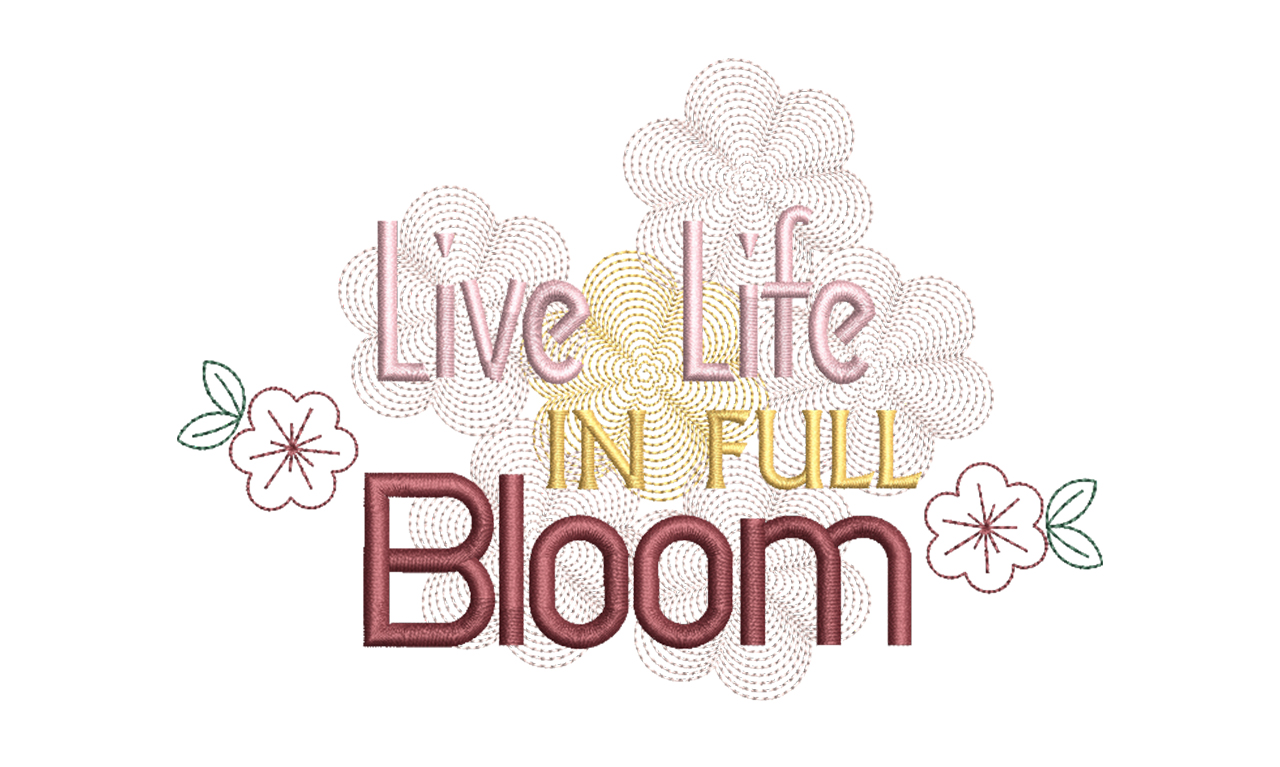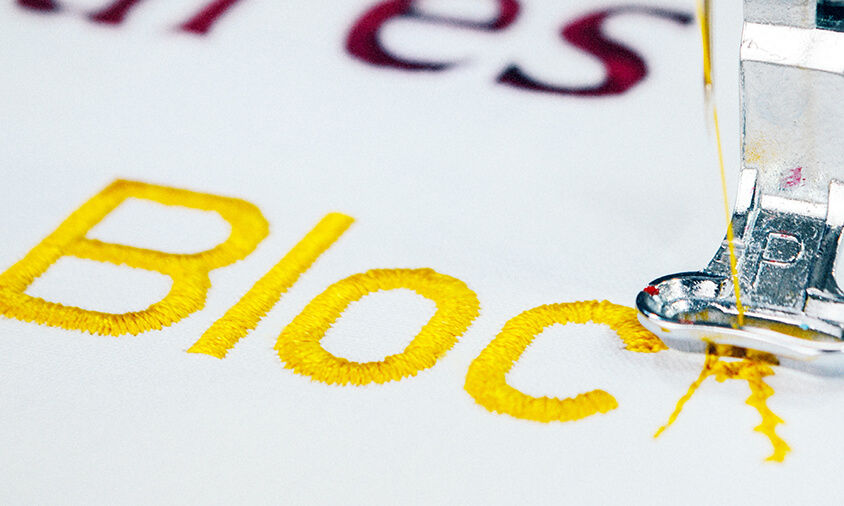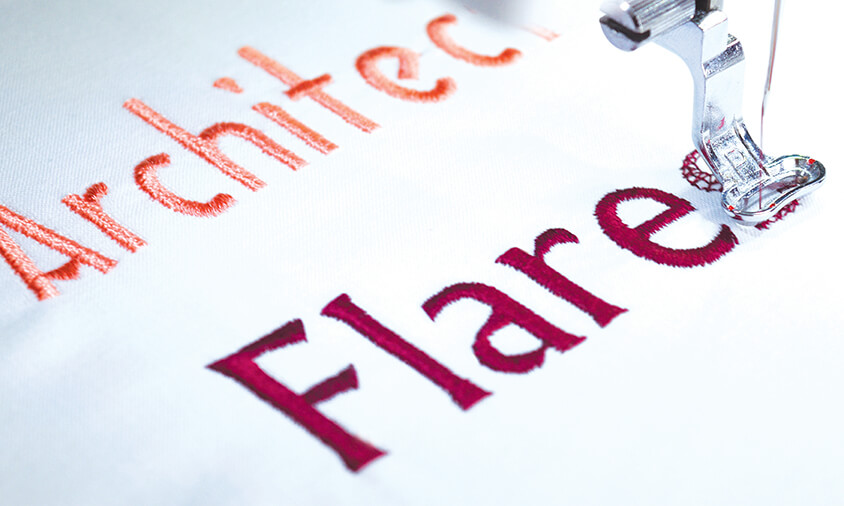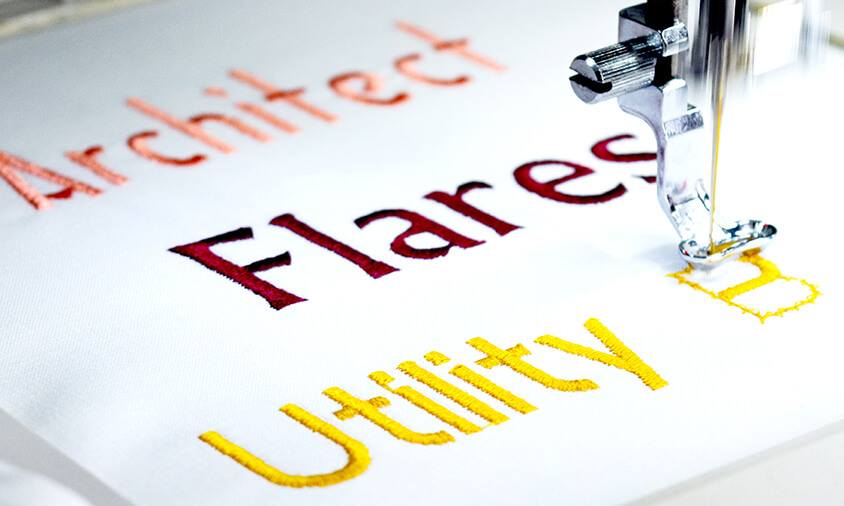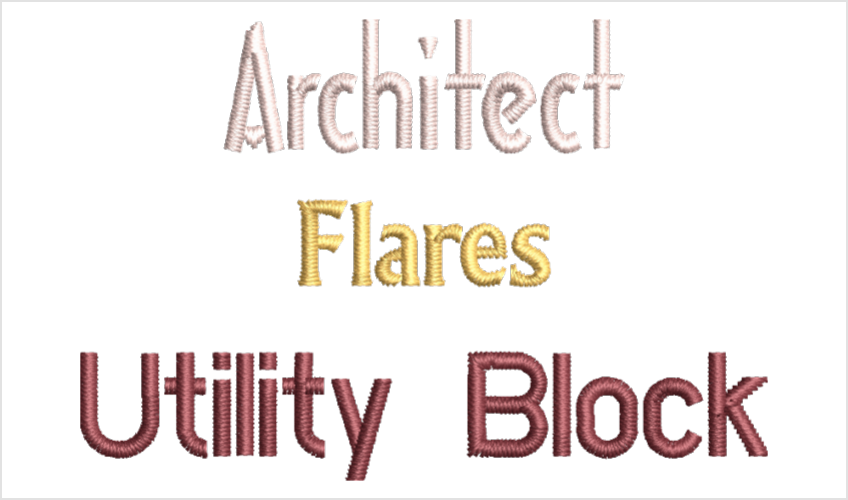
This is one of the easiest font styles to read in embroidery. Perfectly selected to add to your lettering and monogramming font collection. Each one has been professionally digitized to use with keyboard entry, making it really simple to use with excellent embroidery results.